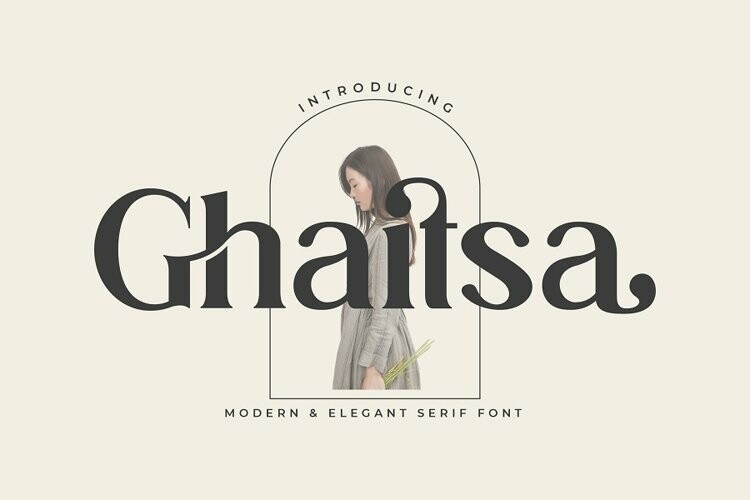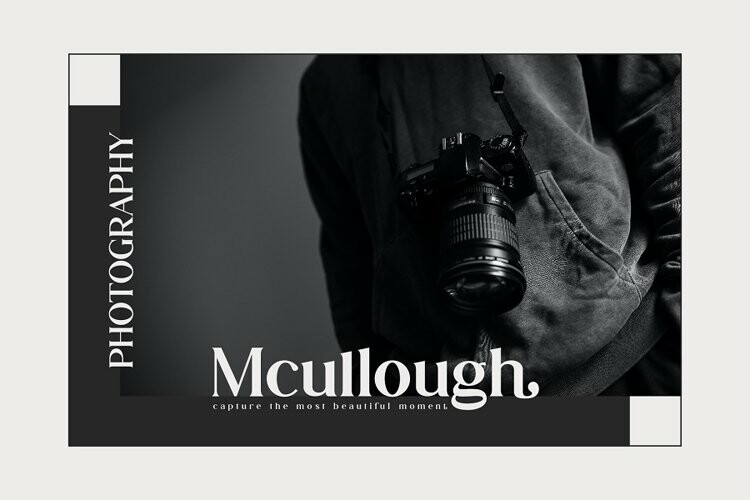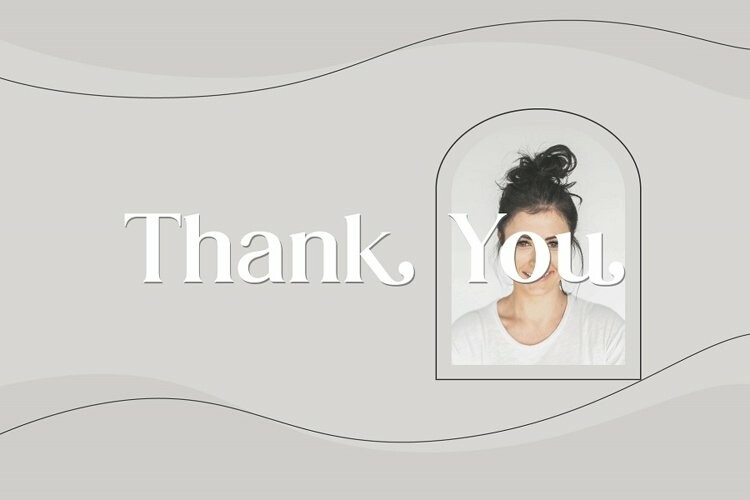
Ghaitsa – Stylish Ligature Font
Ghaitsa - Stylish Ligature FontGhaitsa is a beautiful serif font for a variety of designs. Ghaitsa can be used for products such as handcraft, product packaging, quotes, product design, craftsmen, lanels, photography, watermarks, logos & branding. Everything can be accessed using software that supports Opentype, such as Adobe Indesign, Adobe CS IIustrator, Adobe Photoshop CC, and Corel Draw.